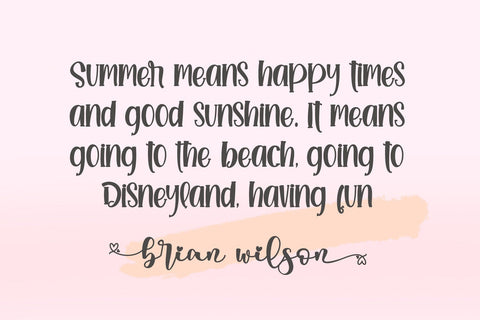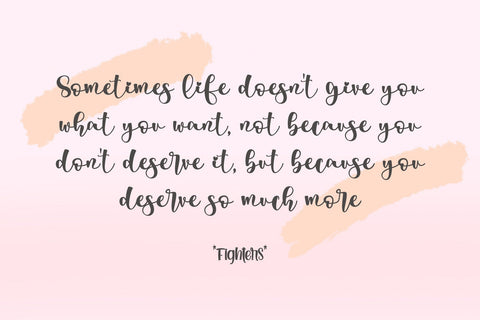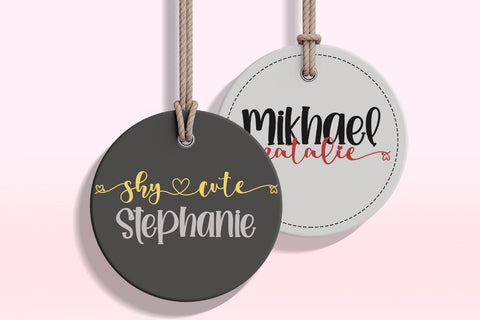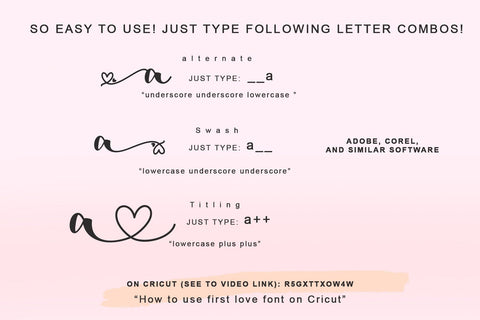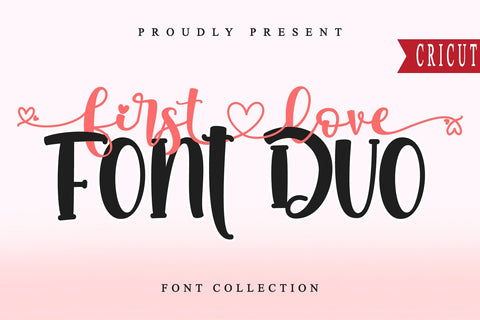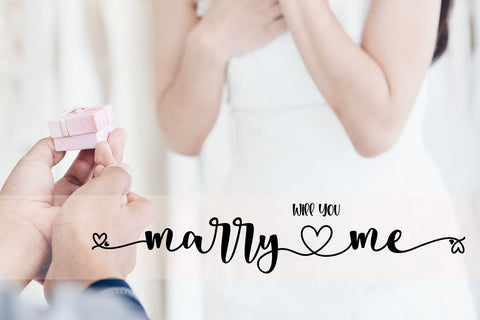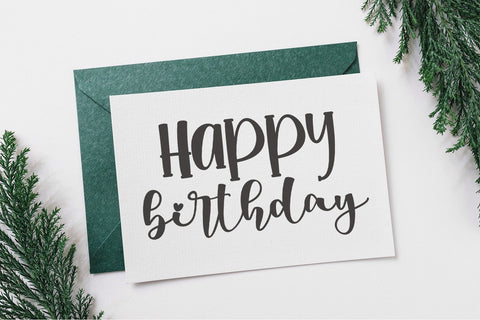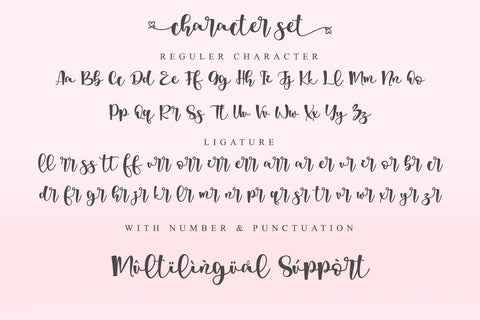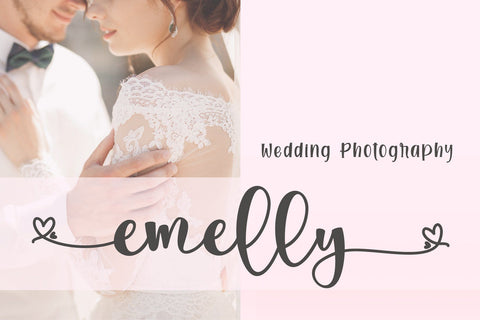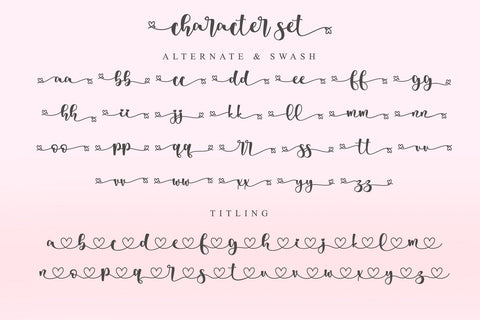
First Love Font Duo
First Love Font Duo is the perfect calligraphy font: Elegant, Sweet, innocent, light, and charming, this one-of-a-kind typeface will add a unique charm to any design project! The connected heart feature makes this font even more charming.
This font is PUA encoded which means you can access all of the glyphs Alternate, Titling, and Swashes with ease! It features a varying baseline, gorgeous glyphs, and stunning alternates.